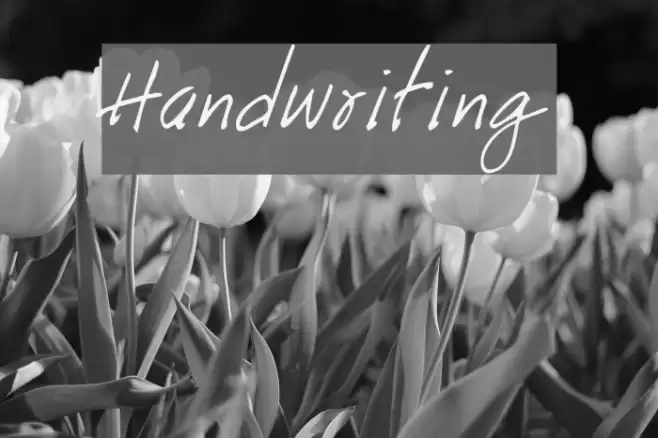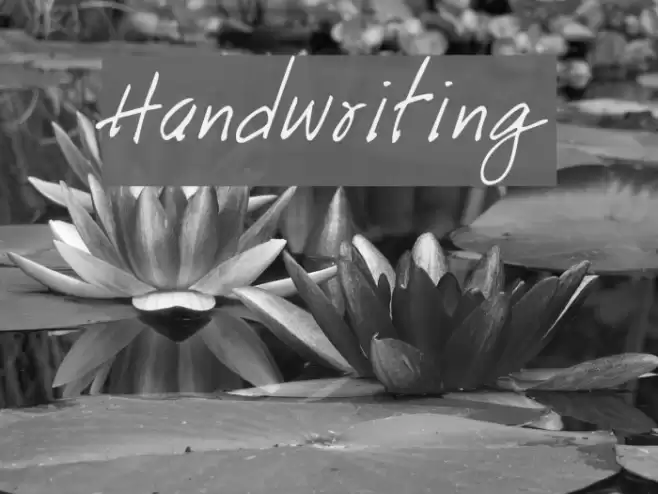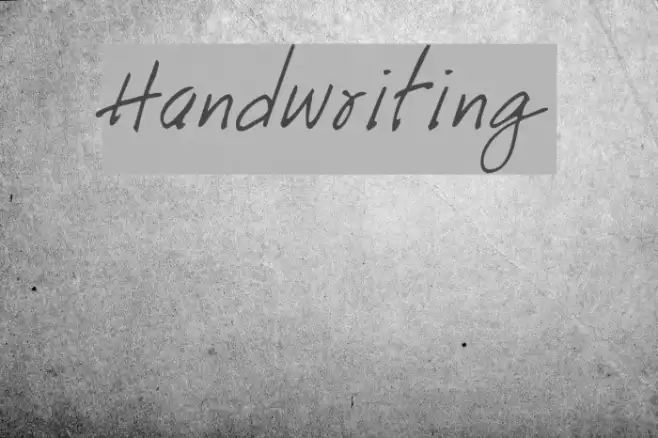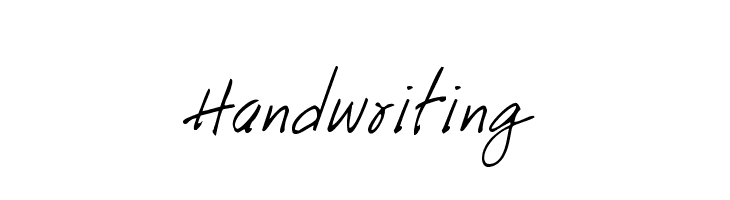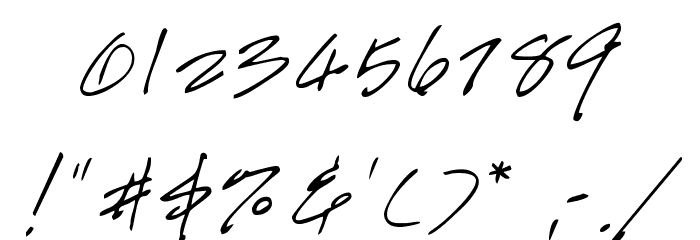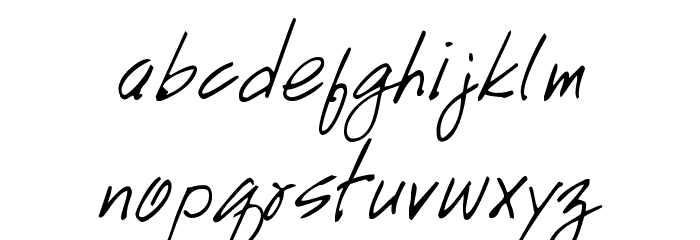
Handwriting Font
Handwriting Description
This font exudes a casual, handwritten style with a dynamic and fluid appearance. The letters are slightly slanted, giving it an informal yet elegant look. The strokes vary in thickness, adding a touch of authenticity and personality. The uppercase and lowercase letters are well-balanced, maintaining a consistent flow throughout. The numerals and special characters complement the alphabet with similar stylistic features, ensuring a cohesive overall design. This font is perfect for projects that require a personal touch, such as invitations, greeting cards, or creative branding.
A casual, handwritten font with dynamic, fluid strokes from Uncategorized fonts.
- Proposed Projects: Ideal for invitations, greeting cards, personal branding, and creative projects.
- Overall Style: Casual, Elegant
- Use Case: Headlines, Creative projects, Personal branding